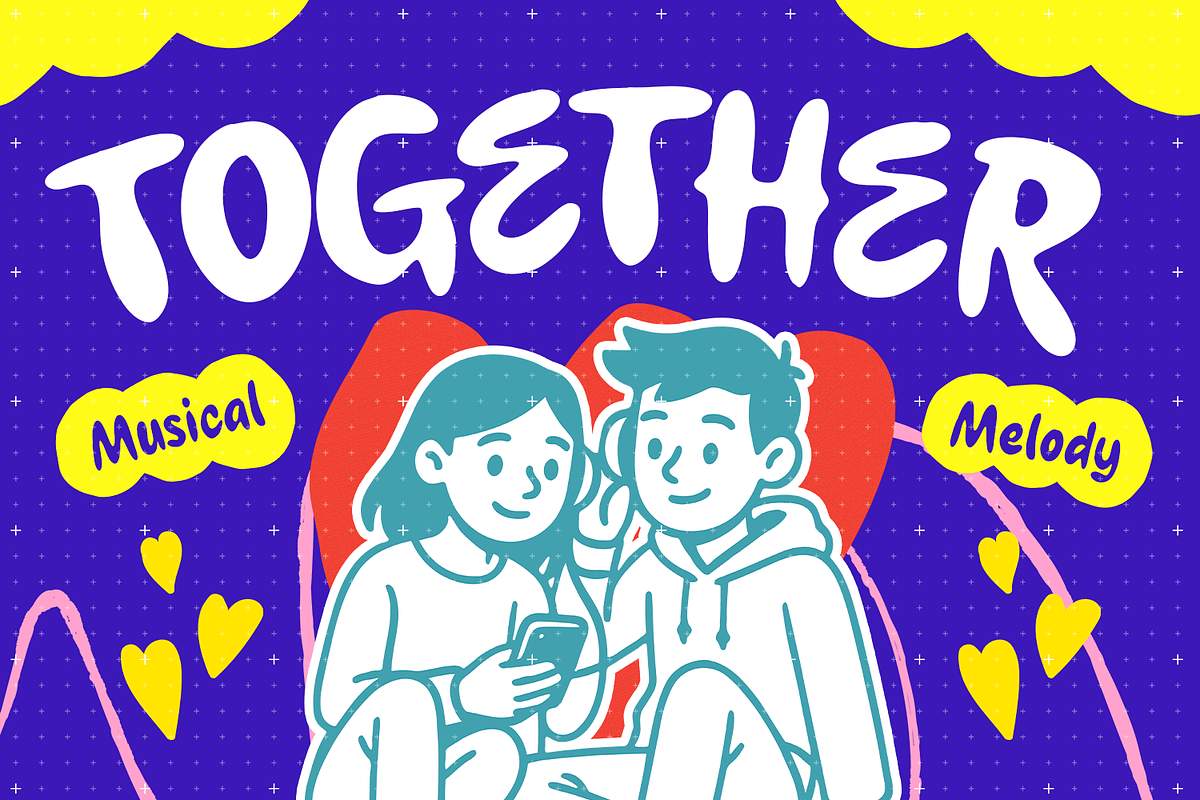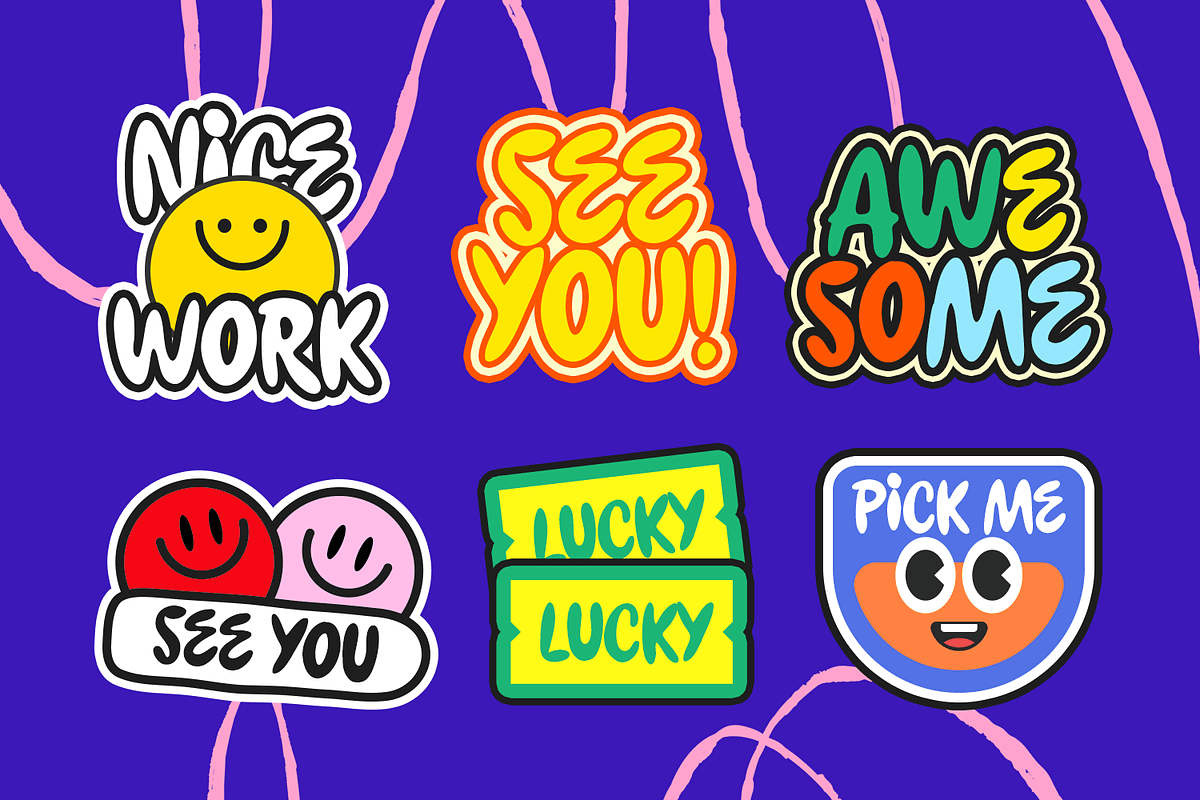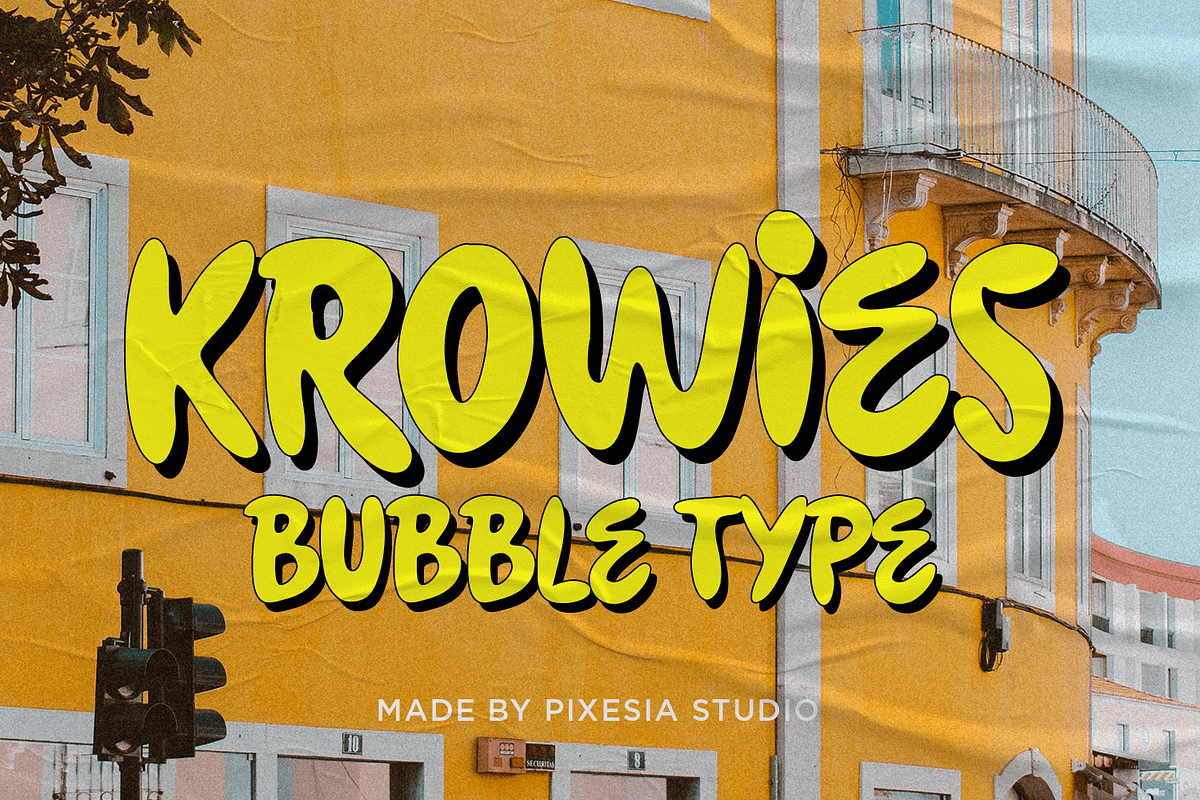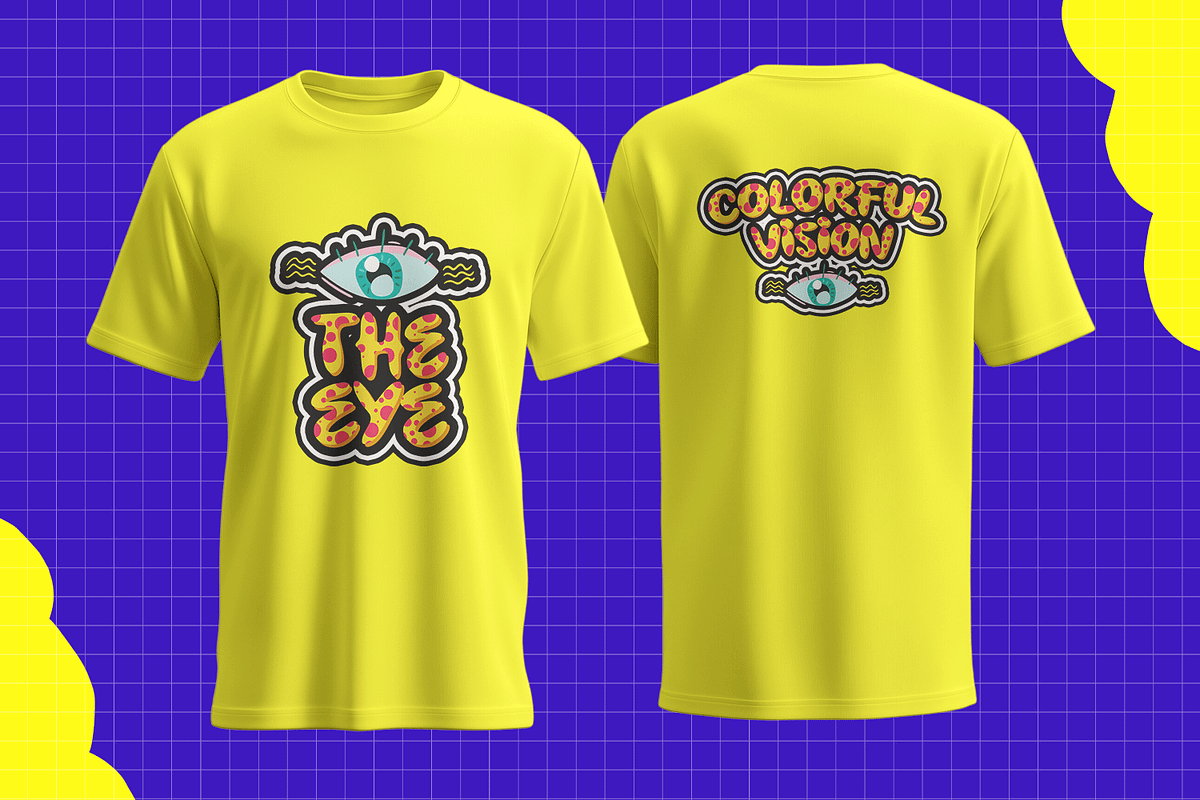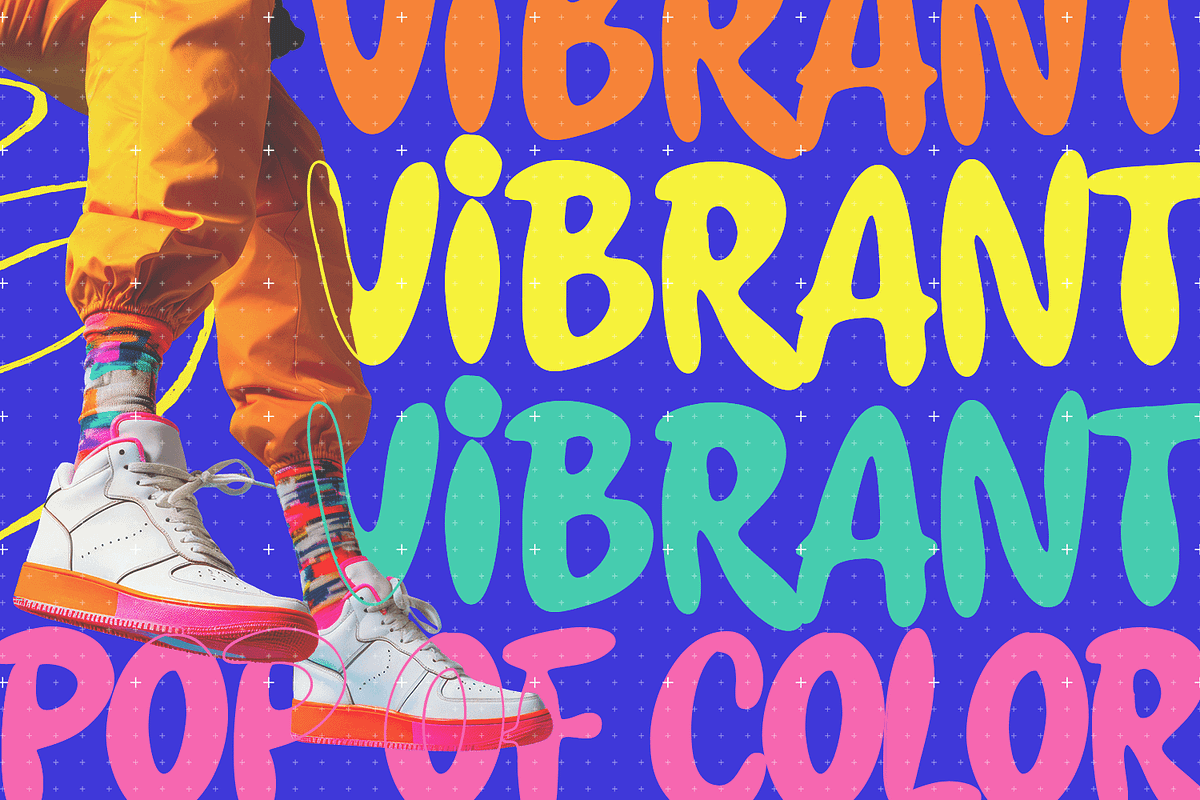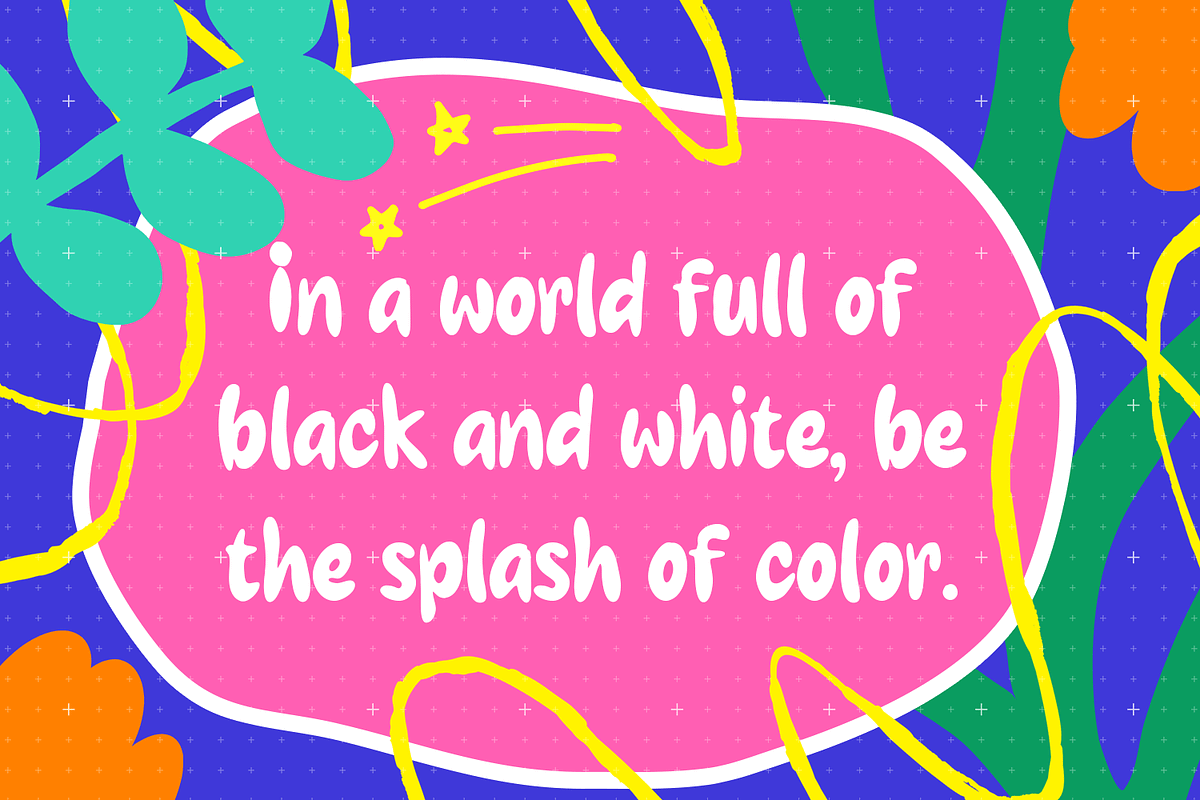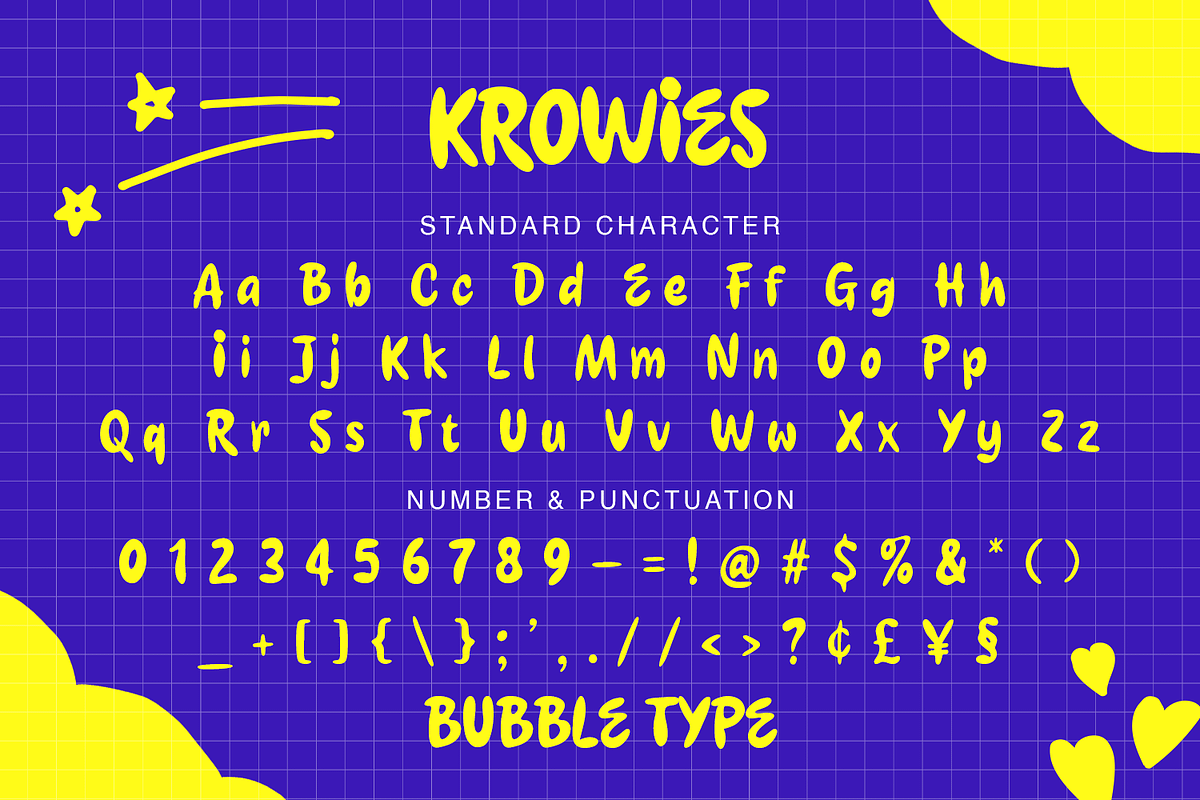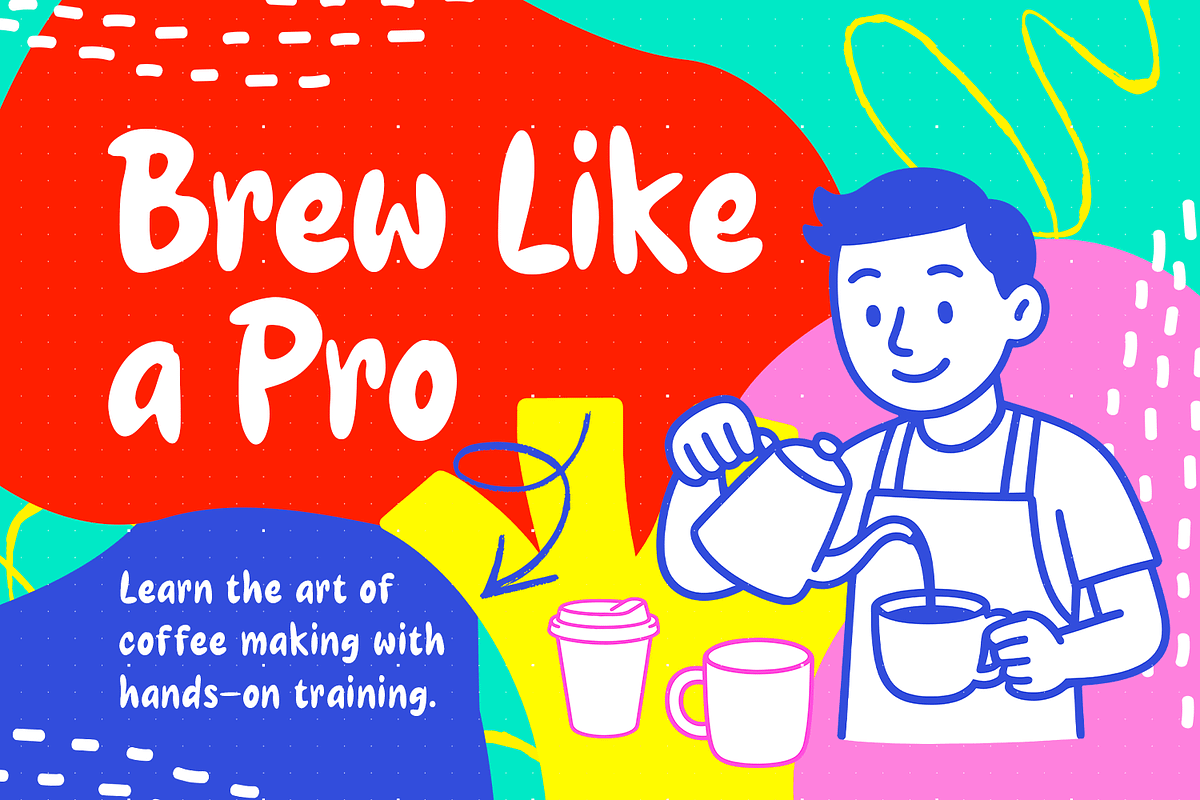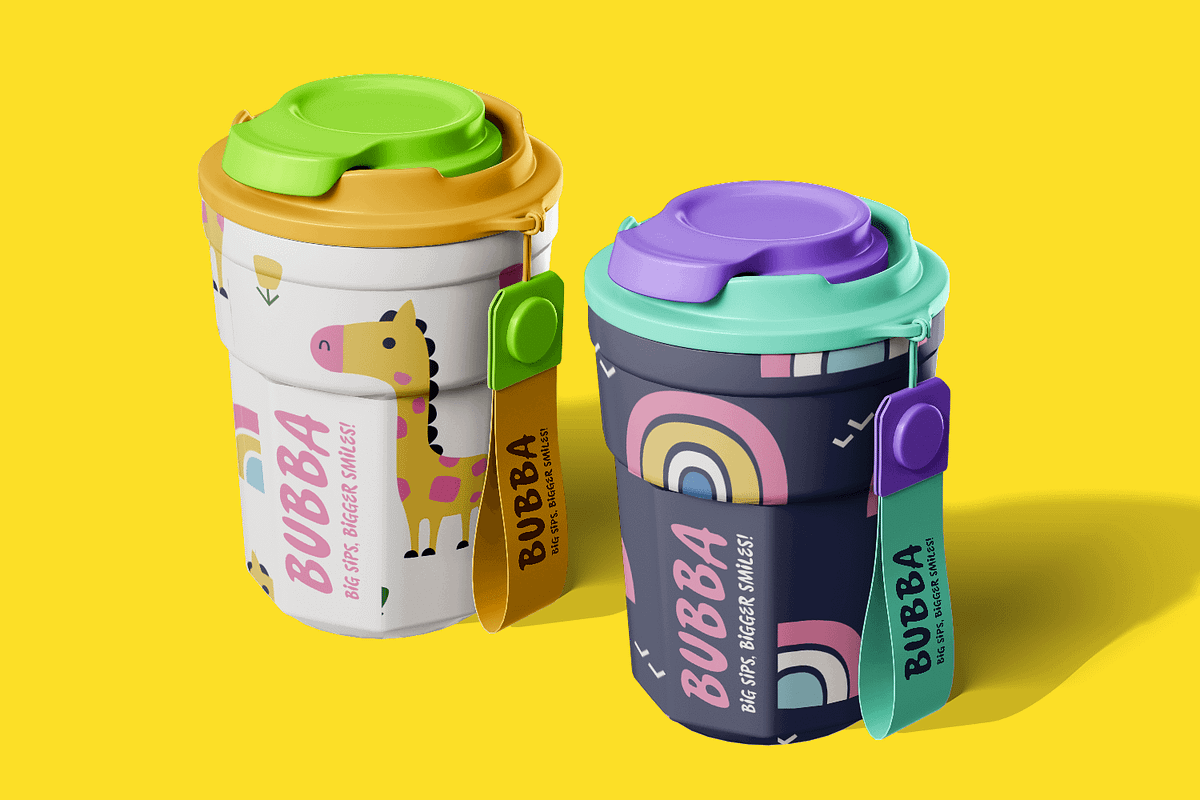
Krowies – Bubble Display Font
Introducing Krowies – Bubble Display Font
Krowies is a bold and playful bubble font designed to bring fun and energy into your projects. Its chunky, rounded letters and dynamic style make it stand out with a cheerful and lively vibe, perfect for catching attention in a friendly way.
Krowies works wonderfully for posters, logos, children’s designs, merchandise, social media graphics, packaging, t-shirts, stickers, and any creative project that calls for a bold, fun, and youthful look.